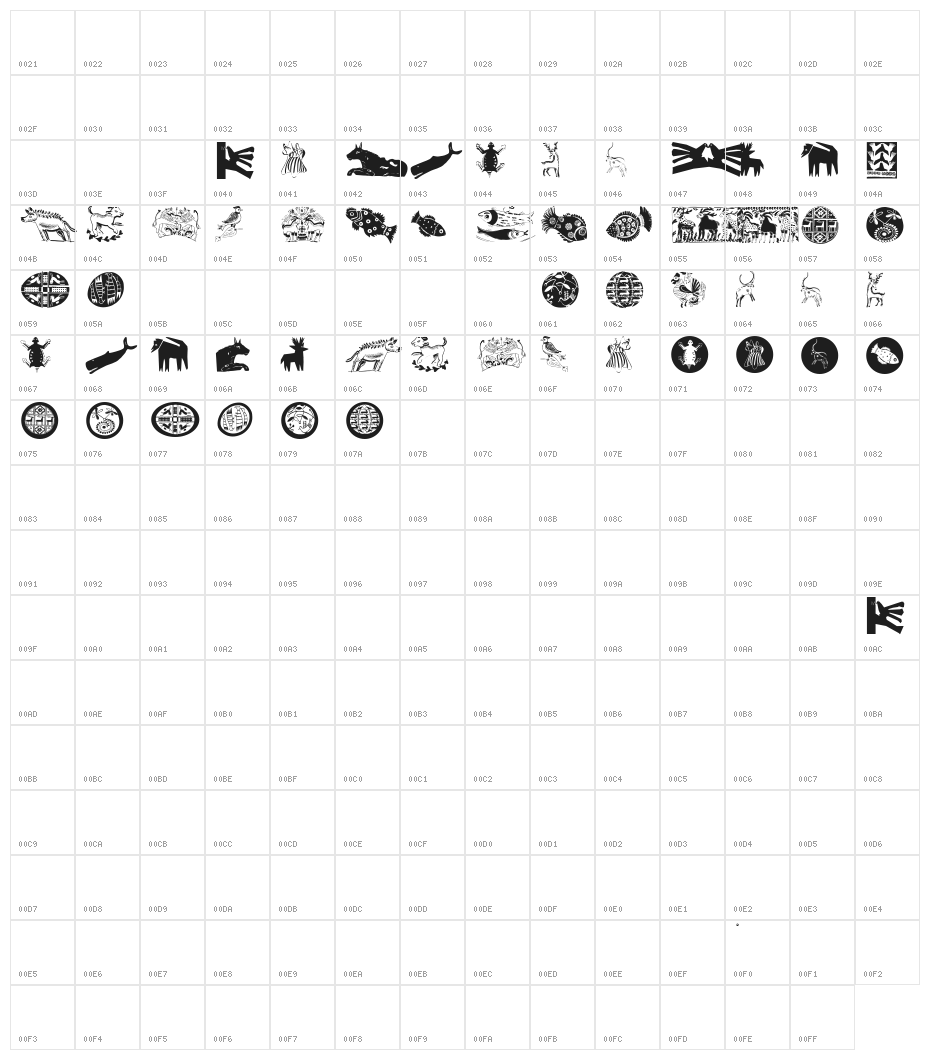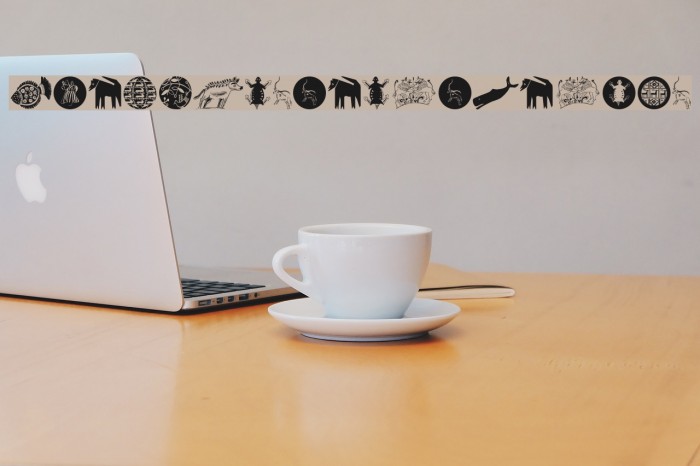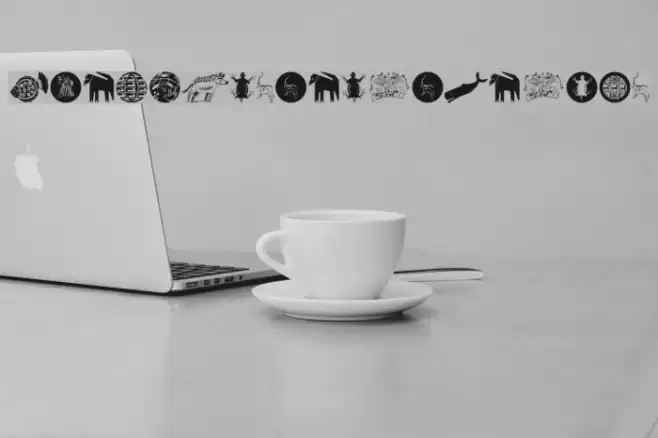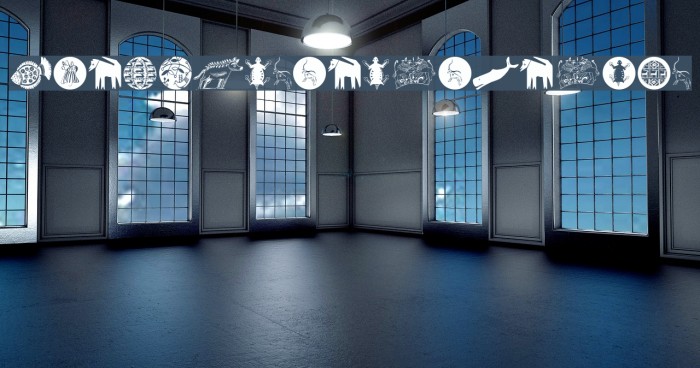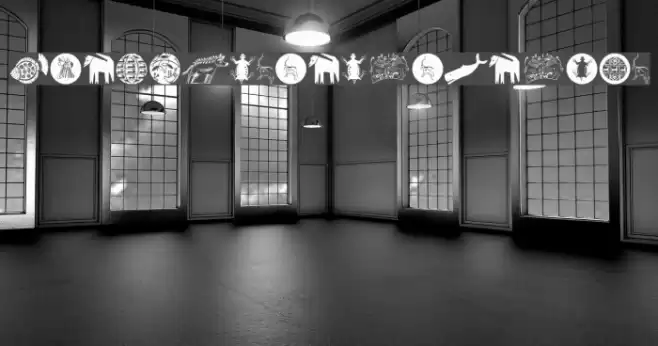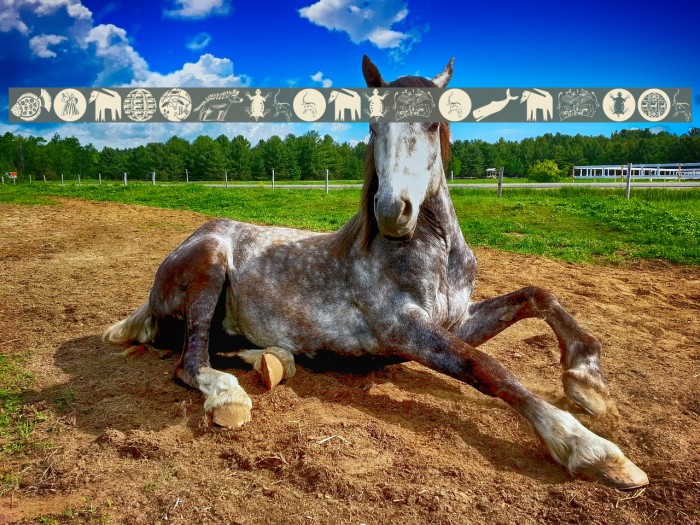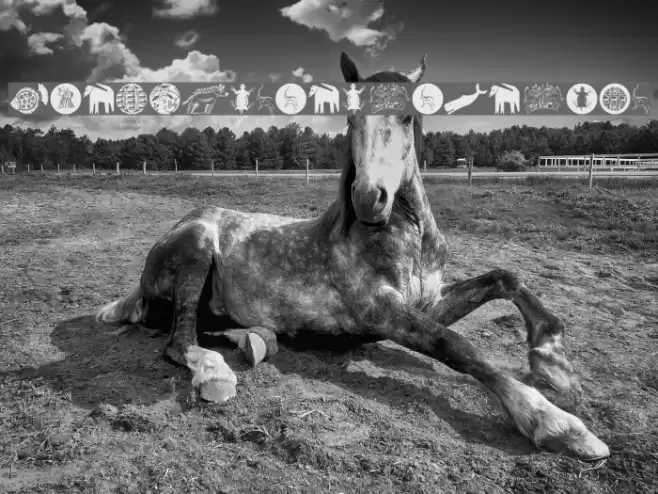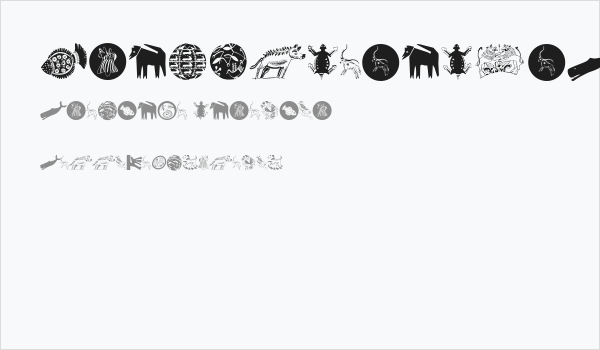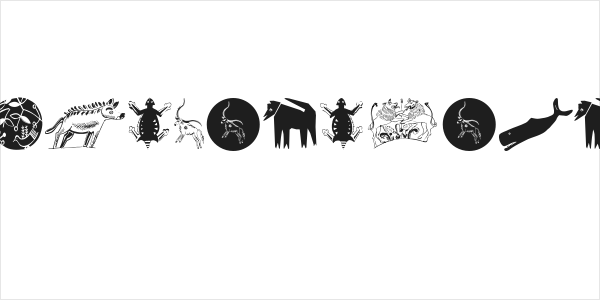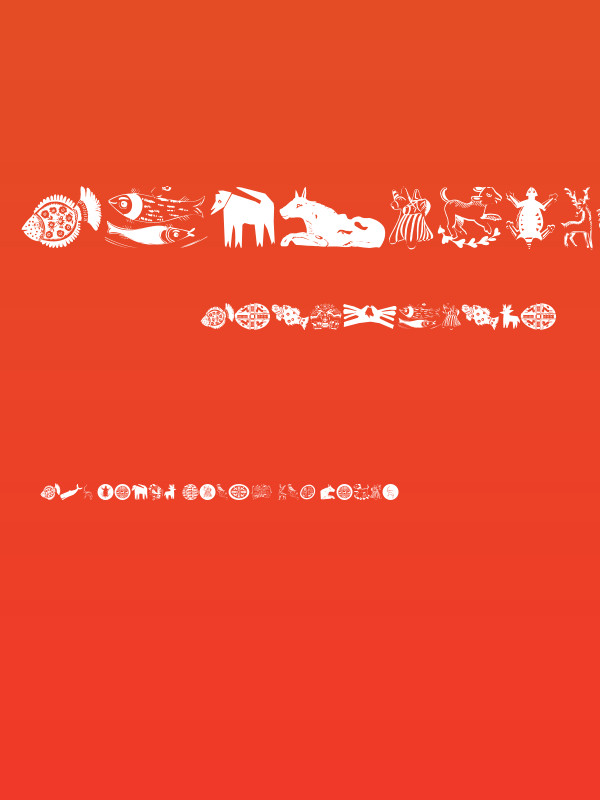
TribalDesignsCinque Font
TribalDesignsCinque Description
A decorative display font featuring tribal-inspired illustrations and motifs, with each character represented by a unique pictorial design rather than traditional letterforms. The glyphs include animals, geometric patterns, and symbolic imagery, rendered in high-contrast black and white.
Overall StyleDecorative, Tribal, Artistic
Use CaseLogos, Headlines, Posters, Themed graphics
Proposed ProjectsPosters, event branding, album covers, cultural or educational materials, decorative headings.